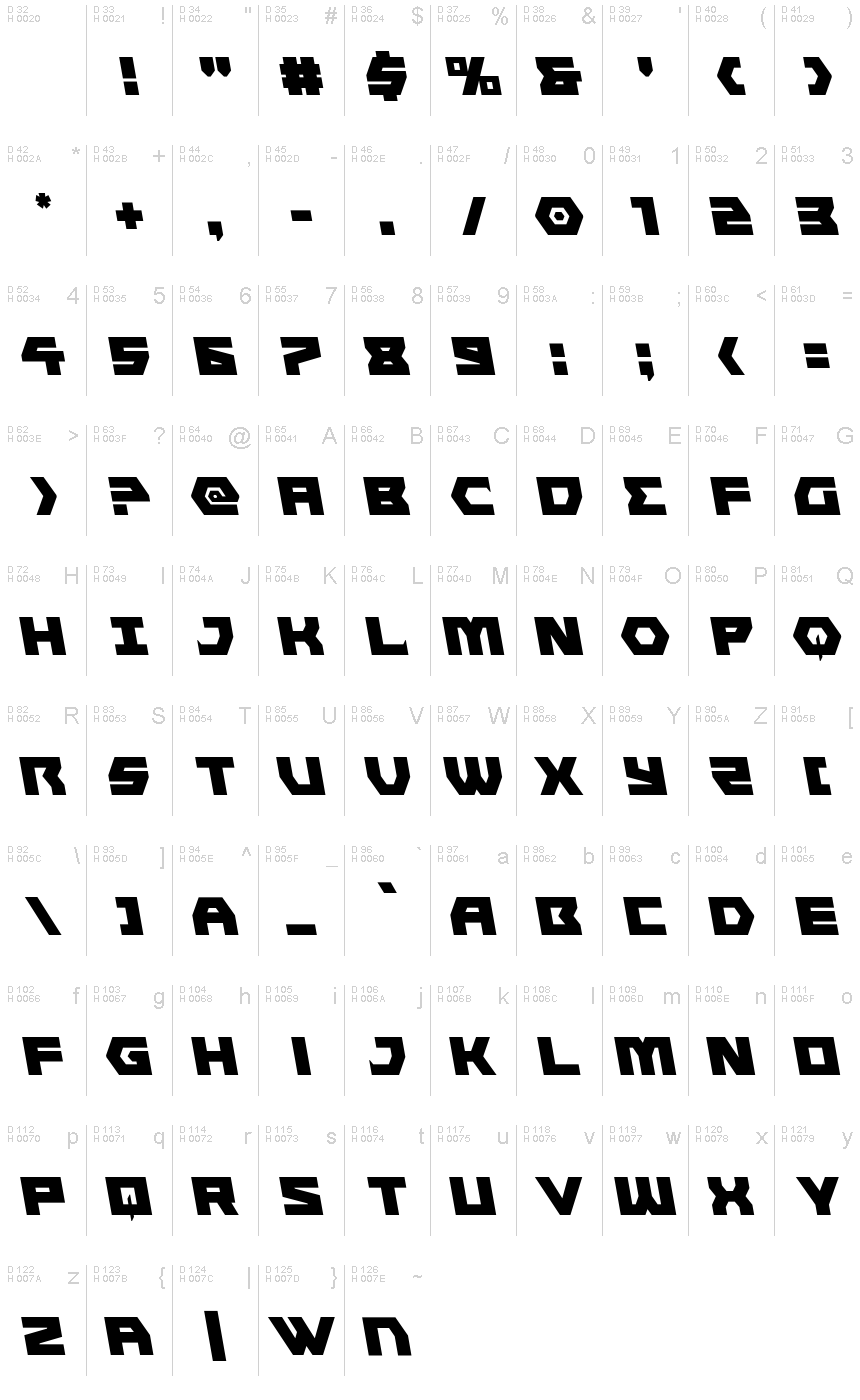
Cyberform Semi-Leftalic
Cyberform Semi-Leftalic, a visually striking display font from Iconian Fonts, commands attention with its bold, futuristic aesthetic. The expanded, semi-lettered letterforms convey a sense of technological prowess and digital-age sophistication. This font's powerful presence evokes a sense of strength and innovation, making it a captivating choice for projects seeking to establish a strong, forward-thinking visual identity.
Cyberform Semi-Leftalic's versatility extends across a range of design contexts, from eye-catching headlines and bold branding to impactful product packaging and dynamic user interfaces. Its expanded width and bold character lend themselves well to attention-grabbing designs, while the semi-lettered style adds a touch of technological elegance. This font's distinctive features make it an excellent choice for projects aiming to communicate a sense of cutting-edge innovation, digital-age authority, and forward-thinking vision.